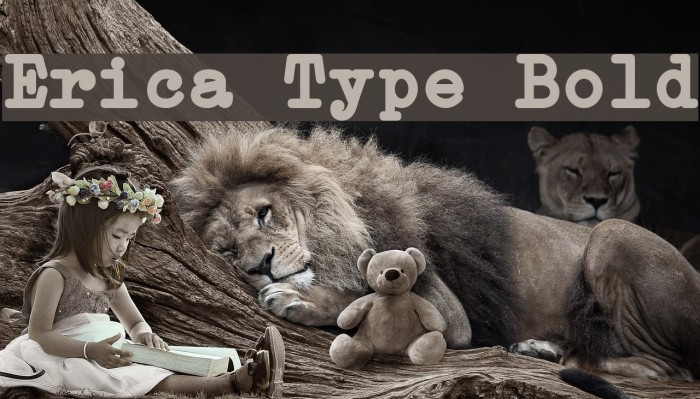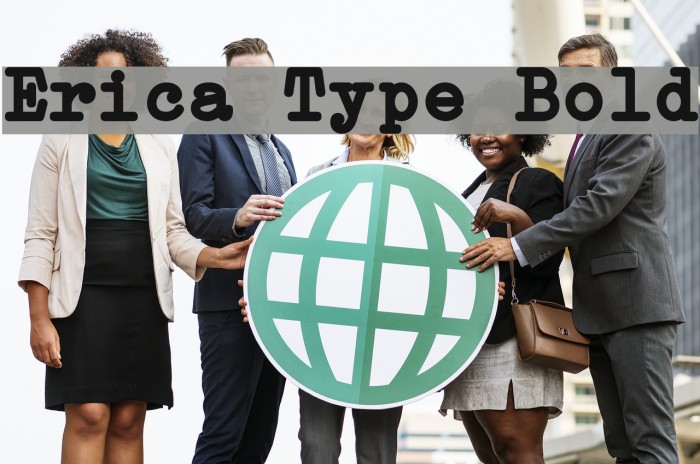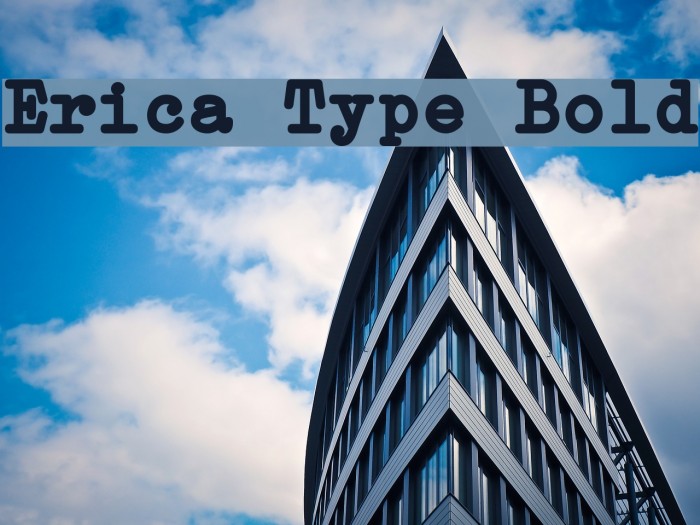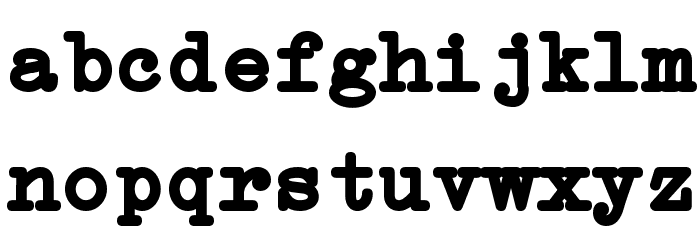
Erica Type Bold Font
Erica Type Bold Description
This font features a bold, slab serif style with thick, uniform strokes that create a strong and impactful appearance. The characters are well-defined with rounded edges, giving them a slightly softened look despite their boldness. The uppercase and lowercase letters maintain a consistent weight, ensuring readability and balance across different text sizes. Numbers and special characters are equally bold, making them stand out effectively. The font's design is reminiscent of traditional typewriter fonts but with a modern twist, making it suitable for a variety of applications.
A bold, slab serif font with thick, uniform strokes and rounded edges from Uncategorized fonts.
- Proposed Projects: Ideal for headlines, posters, branding materials, and any project requiring a strong, impactful typeface.